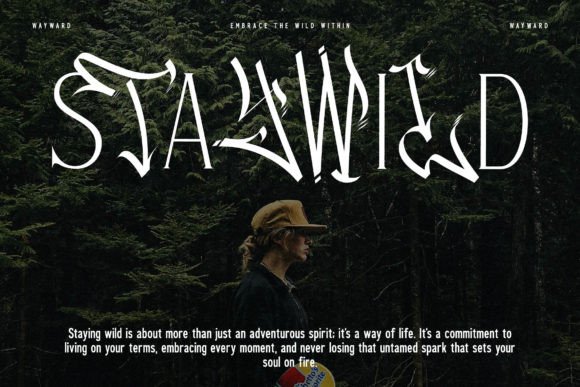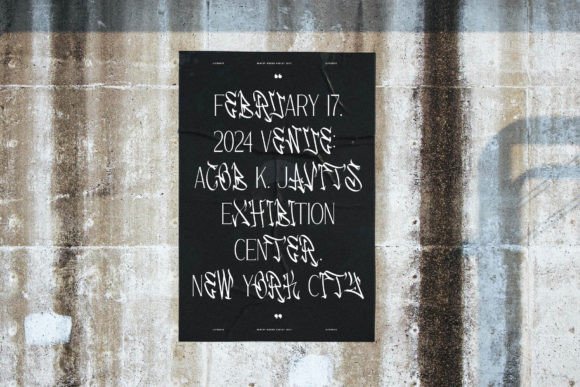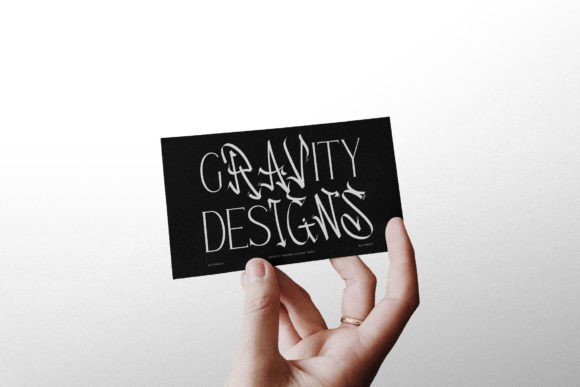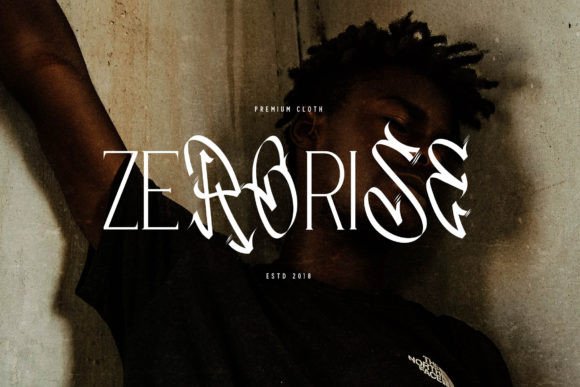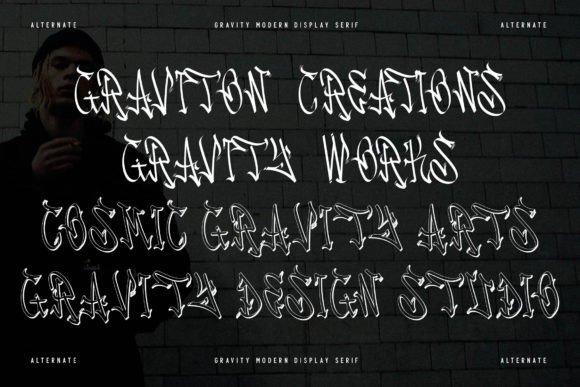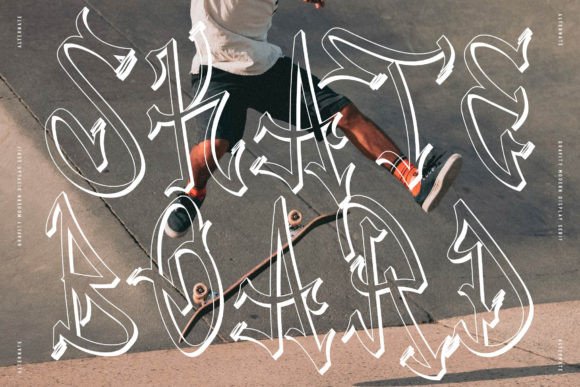
Introducing Gravity Ventore Font: Elevate Your Designs with Elegance and Sophistication
In the world of typography, a font can make or break a design. For designers and crafters seeking to elevate their projects with a touch of elegance and luxury, look no further than the Gravity Ventore Font. This stunning serif typeface seamlessly blends modern and classic elements, boasting a unique style that sets it apart from the rest. In this article, we’ll delve into the features and benefits of Gravity Ventore, exploring how it can transform your designs and take them to new heights.
A Modern Classic: The Gravity Ventore Typeface
Gravity Ventore is a masterfully crafted serif font that exudes sophistication and refinement. Its modern and classic design makes it an ideal choice for a wide range of applications, from elegant logos and luxury branding to book and movie titles, fashion magazines, and more. The font’s unique style is characterized by its clean lines, precise curves, and attention to detail, ensuring that your designs stand out with poise and confidence.
Endless Possibilities: Where to Use Gravity Ventore Font
The versatility of Gravity Ventore Font is one of its most compelling features. This exceptional typeface can be used across various mediums and projects, including:
- Elegant Logos and Luxury Branding: Create a lasting impression with Gravity Ventore’s sophisticated and high-end feel, perfect for luxury brands, high-end products, and services.
- Book and Movie Titles: Add a touch of glamour to your book or movie titles with Gravity Ventore’s classic and modern flair.
- Fashion and Magazine Design: Elevate your fashion brand or magazine with Gravity Ventore’s stylish and elegant aesthetic.
- Clothing and Apparel: Use Gravity Ventore to create eye-catching and stylish lettering for clothing, accessories, and more.
- Quotes and Lettering: Add a touch of sophistication to your quotes, posters, and other lettering projects with Gravity Ventore’s beautiful and intricate design.
PUA Encoded for Ease of Use
Gravity Ventore Font is PUA (Private Use Area) encoded, making it incredibly easy to access and use the font’s extensive range of glyphs and ligatures. This means you can effortlessly incorporate the font’s beautiful swashes, ornaments, and other special characters into your designs, taking them to the next level.
Why Choose Gravity Ventore Font?
With so many fonts available, why choose Gravity Ventore? Here are just a few reasons why this exceptional typeface stands out:
- Unique Style: Gravity Ventore boasts a distinctive and stylish design that sets it apart from other fonts.
- Elegance and Sophistication: This font exudes luxury and refinement, making it perfect for high-end projects and designs.
- Versatility: Gravity Ventore can be used across a wide range of mediums and projects, from logos and branding to fashion and lettering.
- PUA Encoded: Easy access to the font’s extensive range of glyphs and ligatures, making it simple to create stunning designs.
In conclusion, Gravity Ventore Font is a game-changer for designers and crafters seeking to elevate their projects with elegance, sophistication, and style. With its unique blend of modern and classic elements, PUA encoding, and versatility, this exceptional typeface is sure to become a staple in your design arsenal. Whether you’re working on a luxury brand, fashion magazine, or simply looking to add a touch of glamour to your designs, Gravity Ventore Font is the perfect choice.